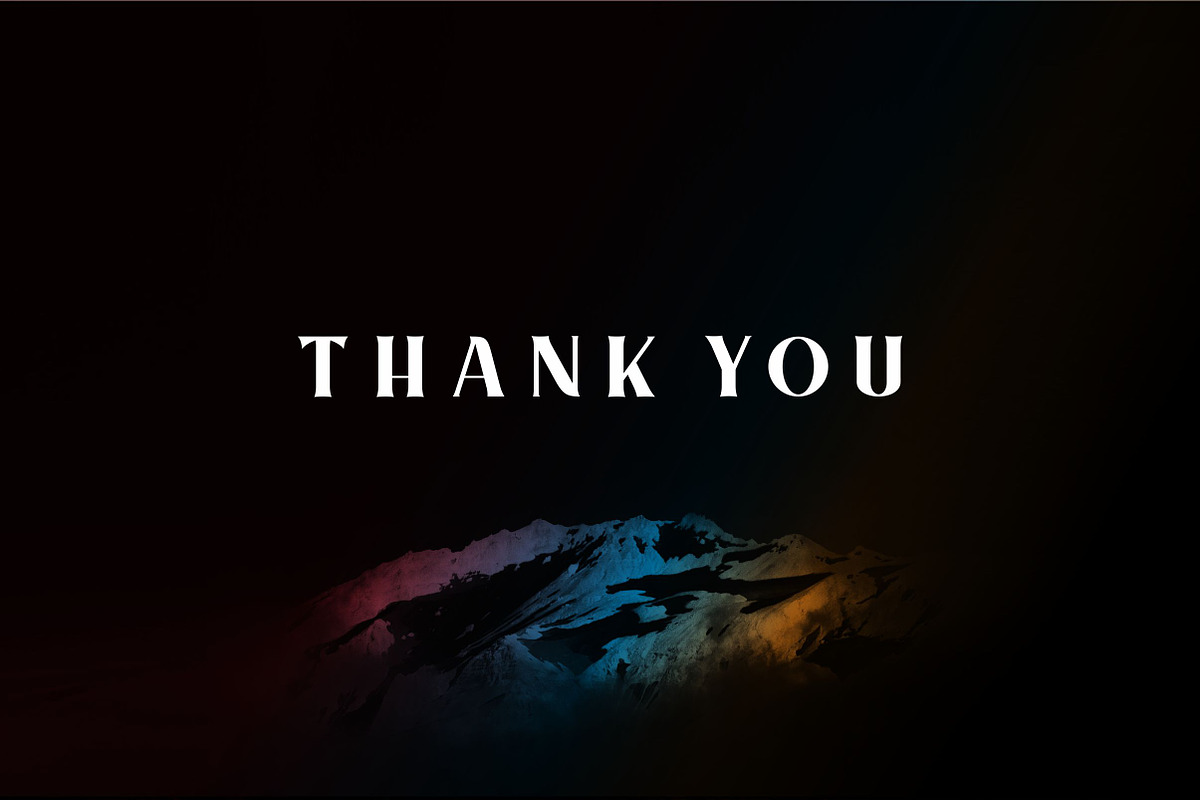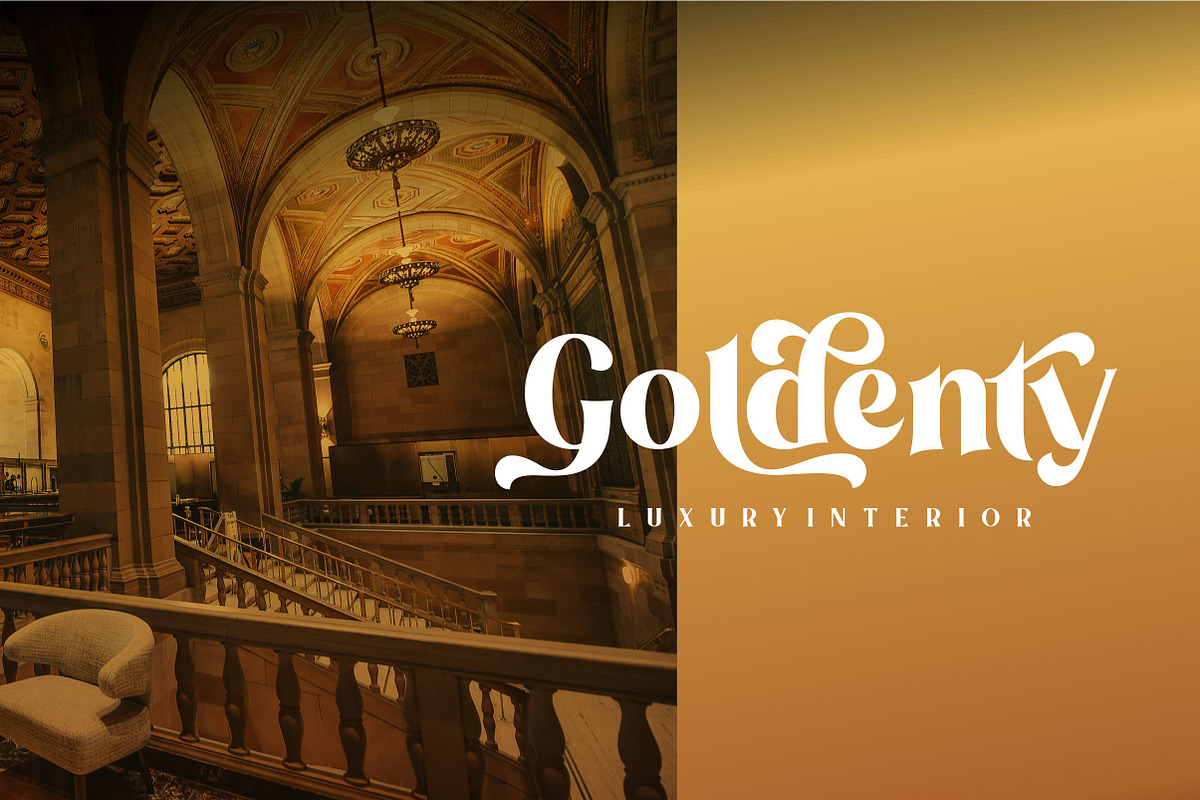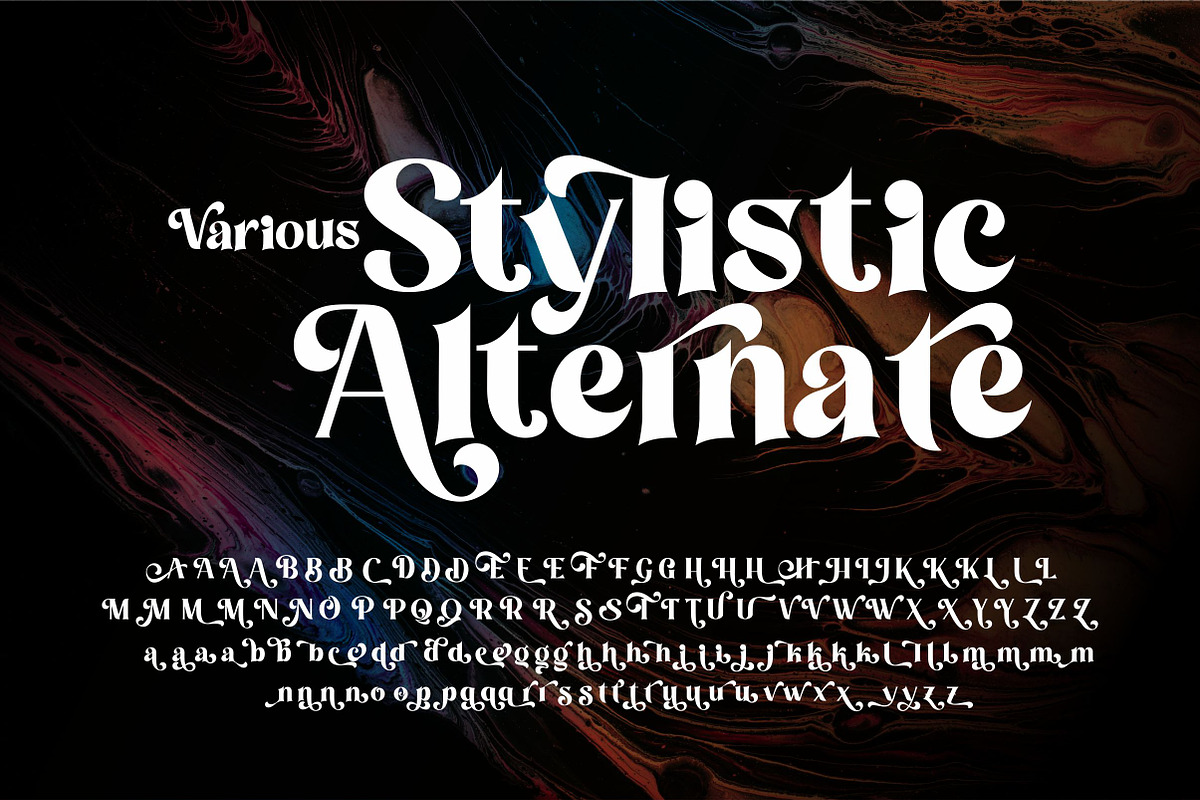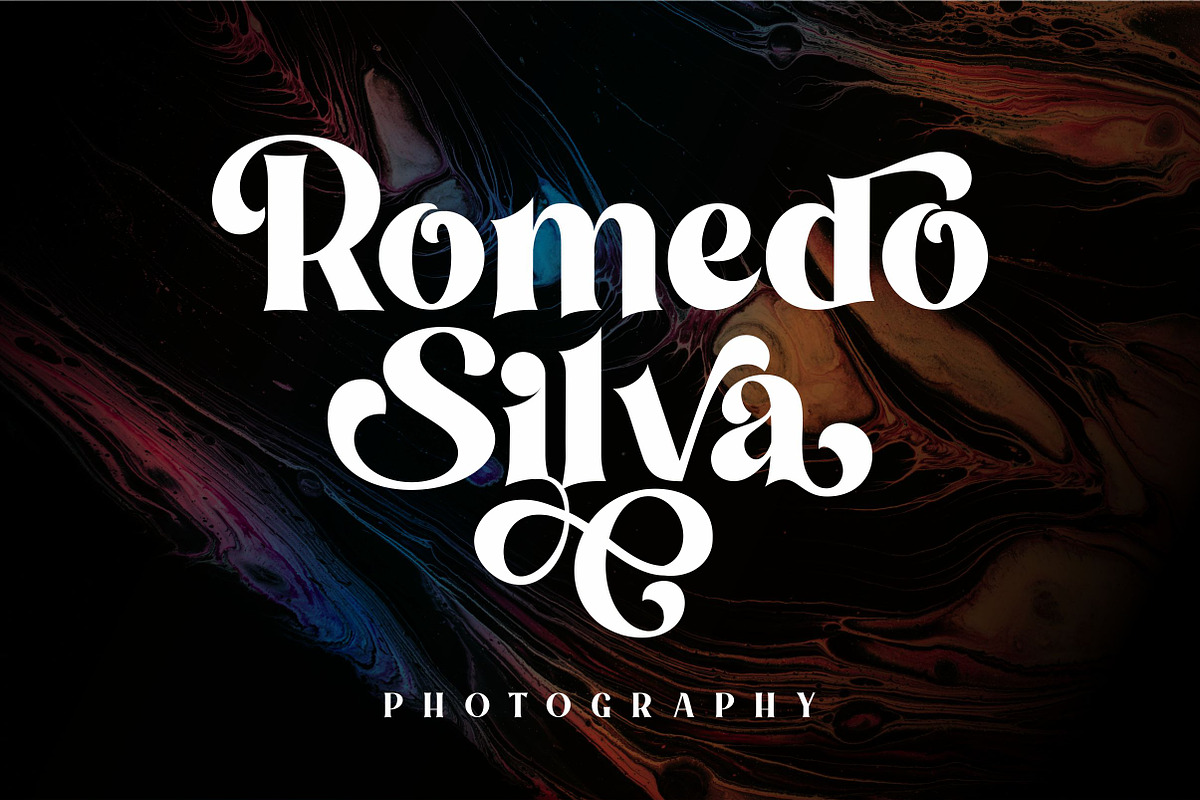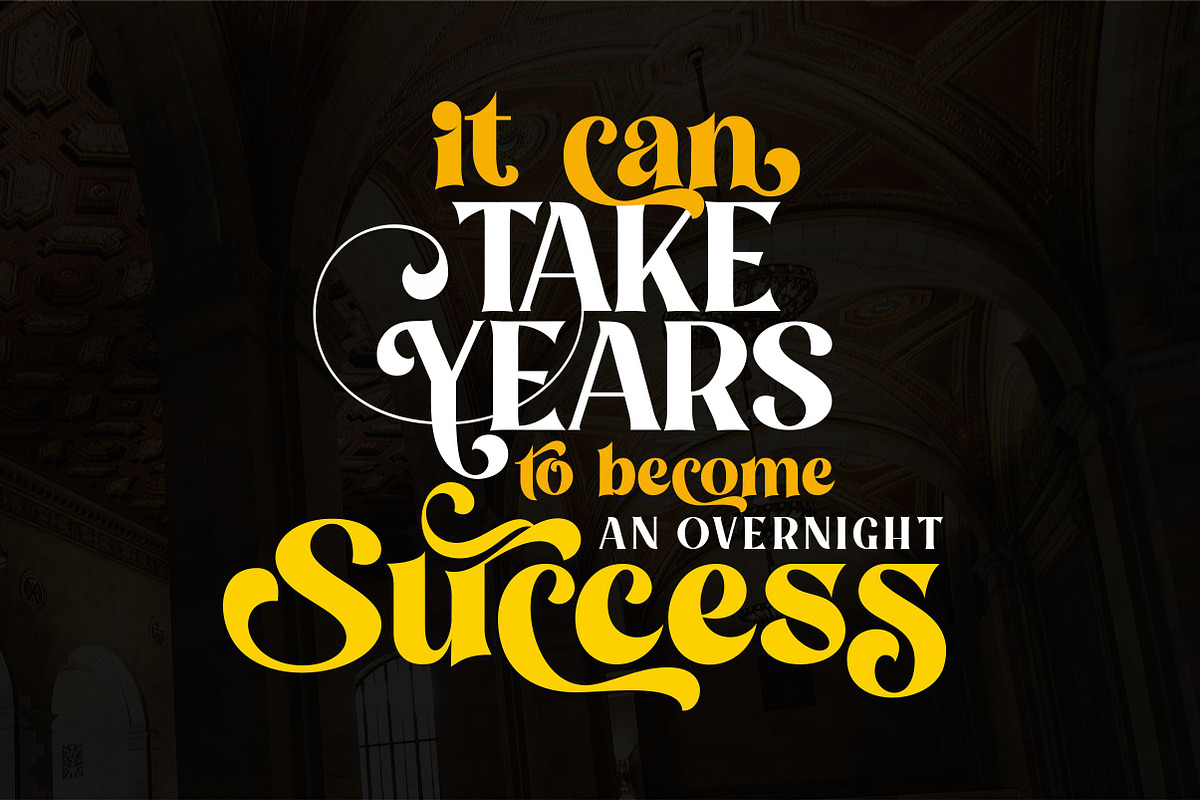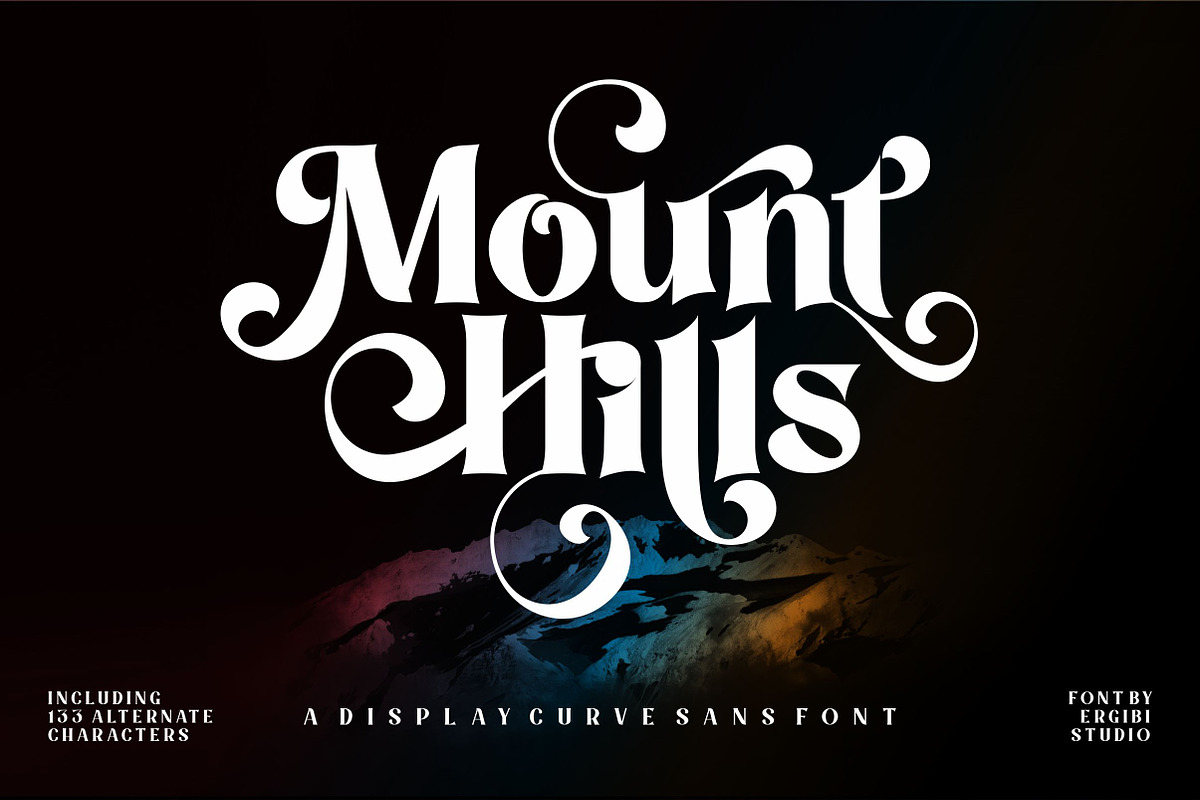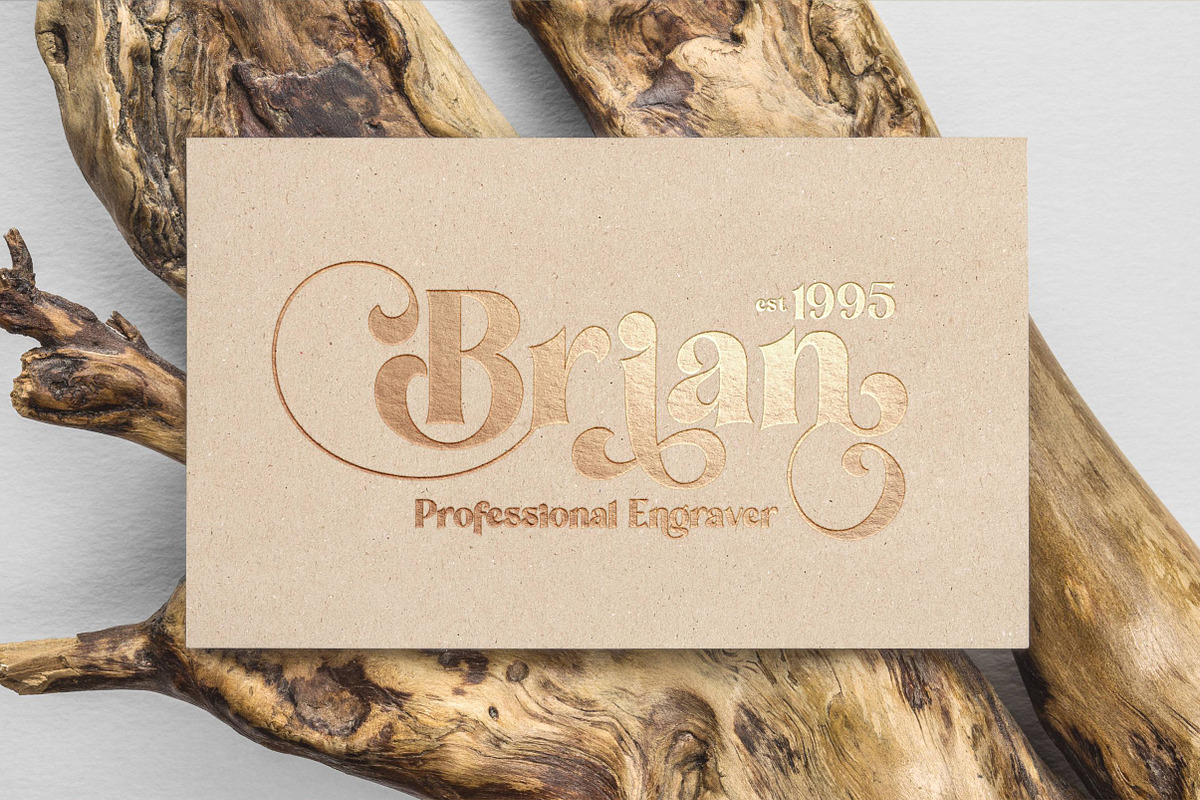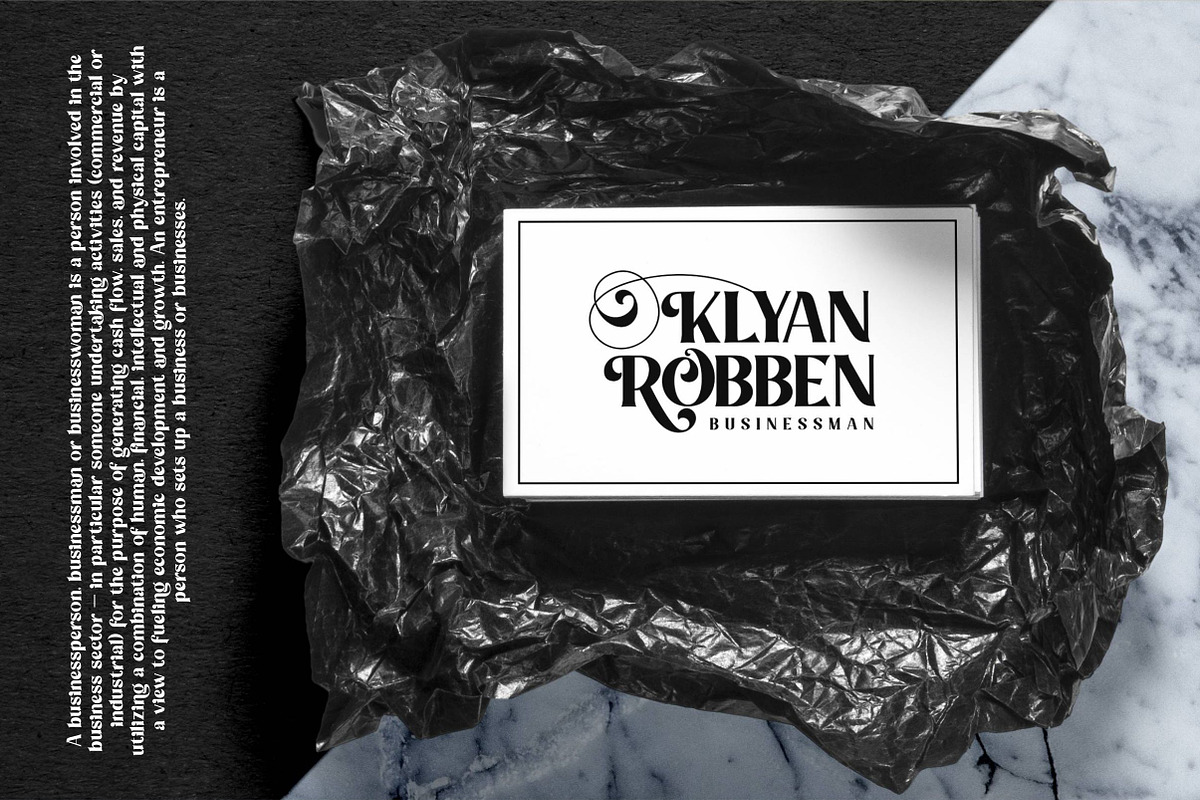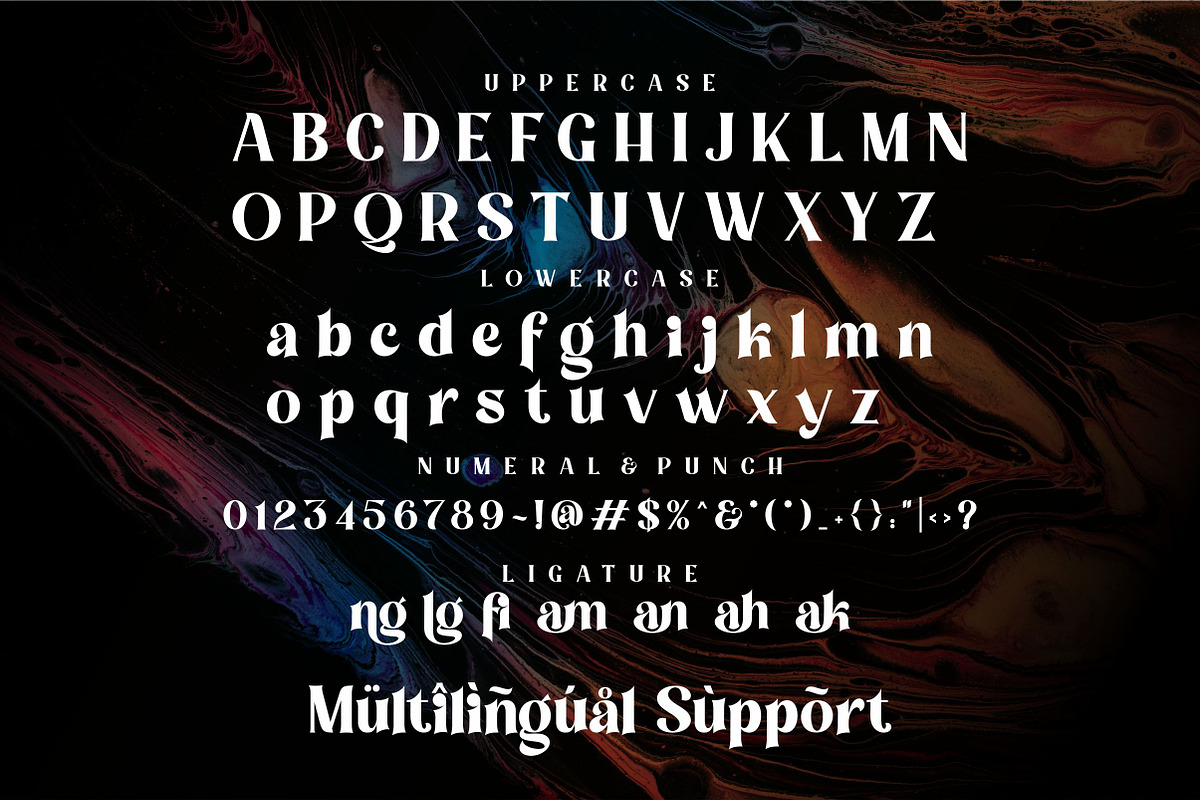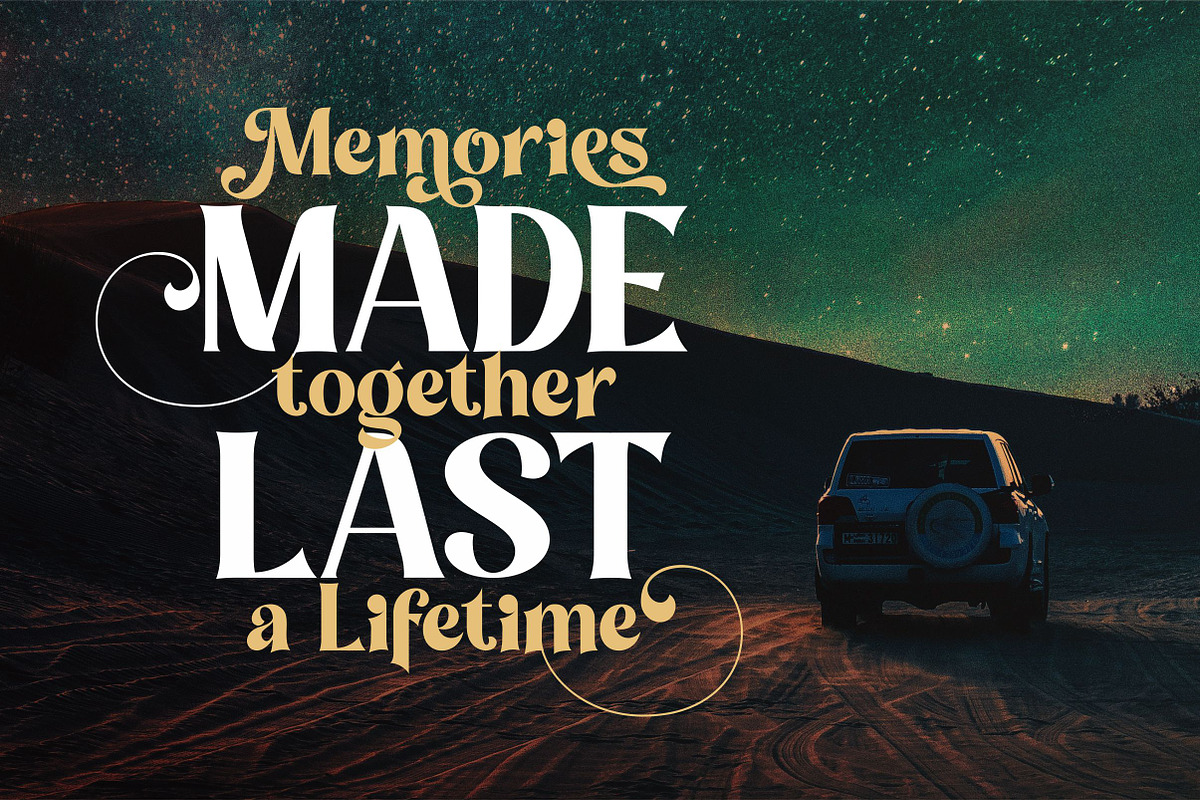
Mount Hills - Display Curve
INTRODUCING, Mount Hills, This typeface has been made carefully to make sure its premium quality and luxury feel. The many alternate character on serif makes this typeface unique and stands out rather than the regular sans font, perfectly for headlines, logos, posters, packaging, T-shirts,coffee shops, restaurants, magazine's headers, signs or gift/post cards,cafe's and weddings or any type of advertising purpose.
- Character set A-Z
- 133 Stylistic Alternates